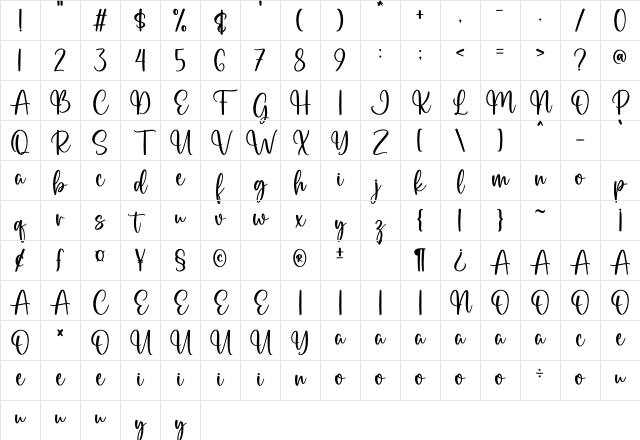
Bluebell Regular
Foundry: Graphix Line Studio
Designer: Aldi Raya Pradipta
Design Context for Bluebell
Bluebell is a composed and adaptable typeface that performs quietly and consistently across a wide range of design contexts.